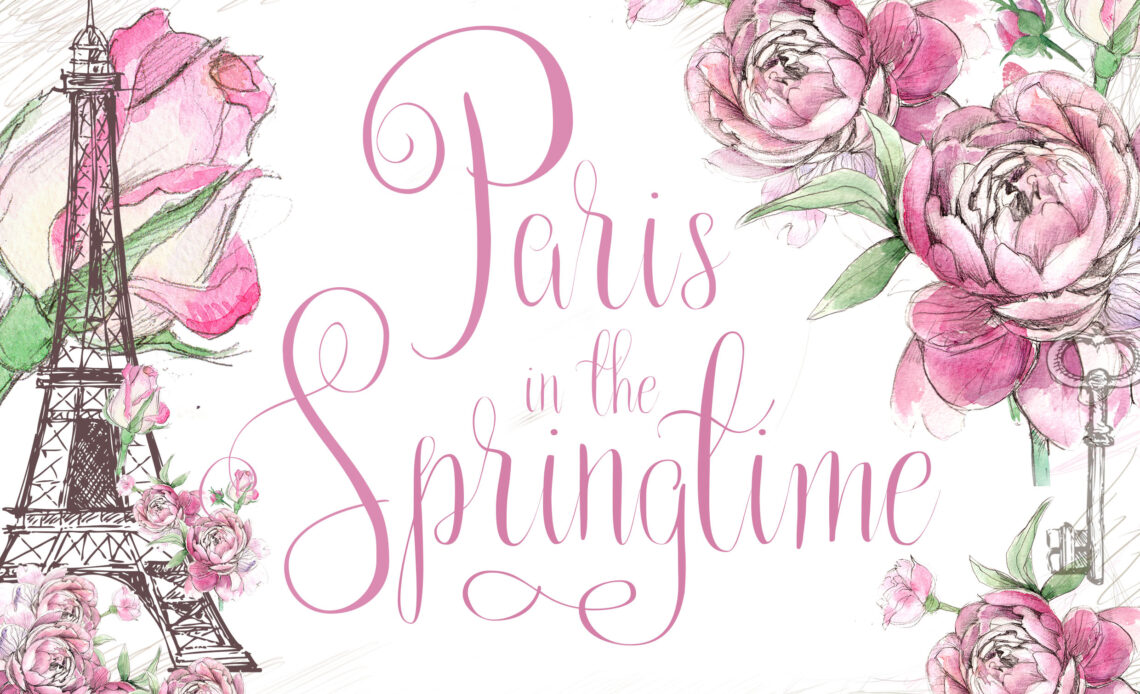
Paris in the Spring Font
Step into the heart of Paris in the Spring, where romance blooms in every letter and art flourishes with delicate charm. Paris in the Spring Font, a breathtaking script from Kylie Ellway, captures the essence of the City of Lights, where dreams dance on cobblestone streets and love whispers in the air.
With its intricate swirls and elegant curves, Paris in the Spring Font is a masterpiece of typographic art. It's like a handwritten note from a lover, filled with emotion and longing, perfect for creating designs that exude sophistication and timeless beauty. Whether you're crafting wedding invitations, fashion catalogs, or elegant branding, this font will add a touch of enchantment to your creations.
Immerse yourself in a chromatic symphony of roses, tulips, and cherry blossoms, as each letter unfolds like a petal in bloom. Paris in the Spring Font's versatile alternates allow you to create unique and beautiful typographic designs that will leave a lasting impression. Its delicate strokes and chic aesthetic bring a touch of elegance to any project, making it the perfect choice for designers seeking to evoke a sense of timeless romance and charm.
But Paris in the Spring Font is more than just a collection of letters; it's a portal to a world of dreams and desires, where imagination takes flight and creativity knows no bounds. Let your designs bloom with the magic of this enchanting script, and transport your audience to the heart of Paris, where beauty reigns supreme.